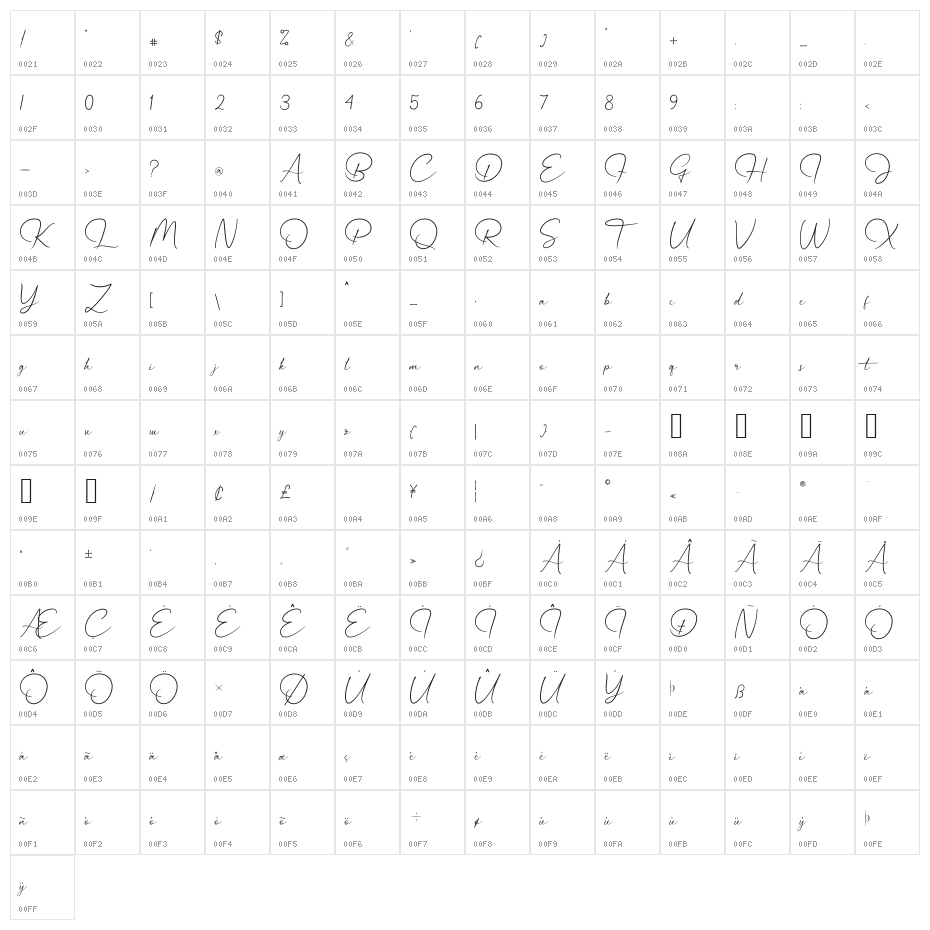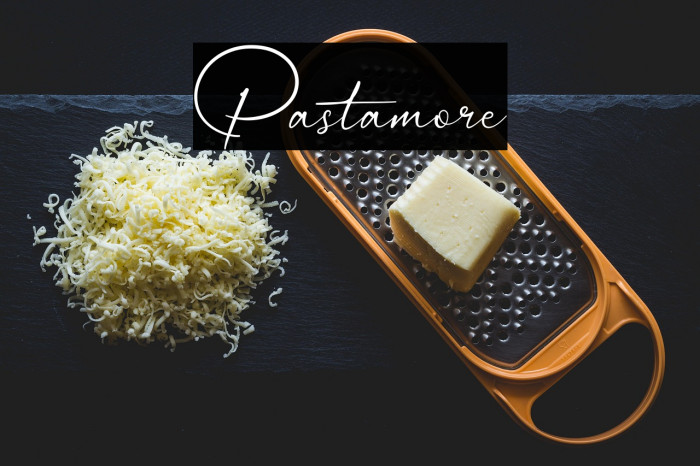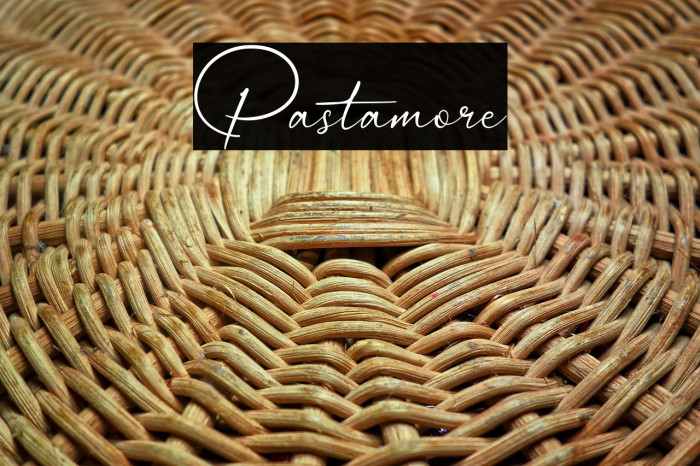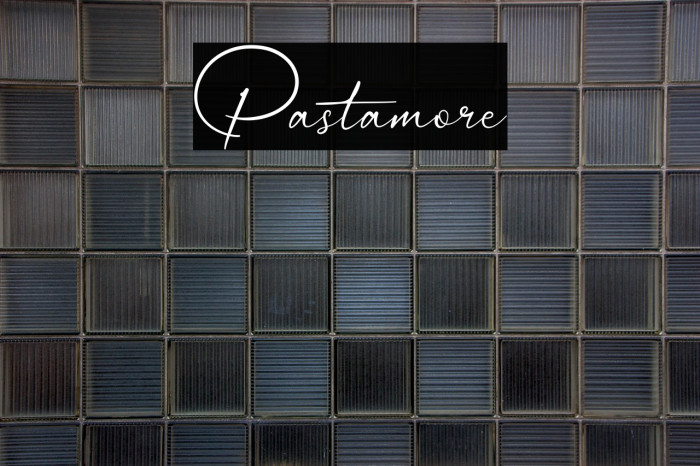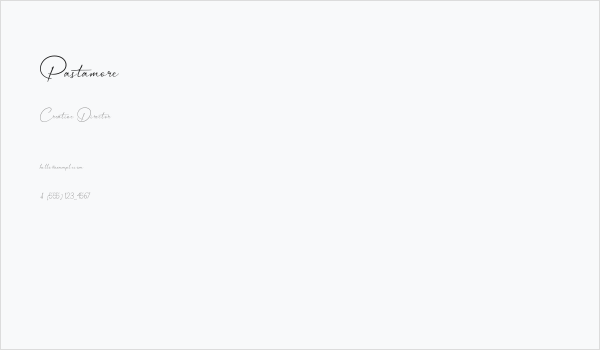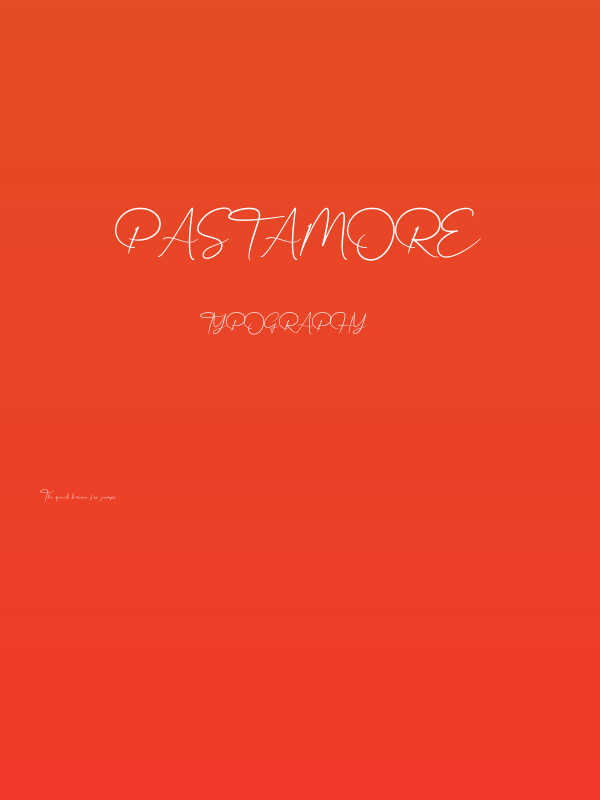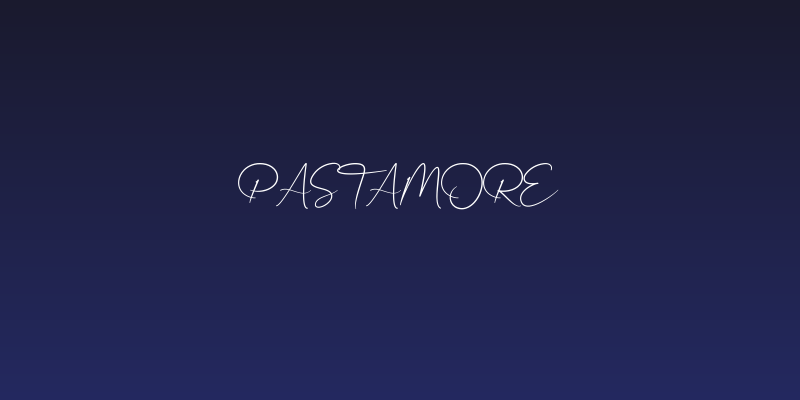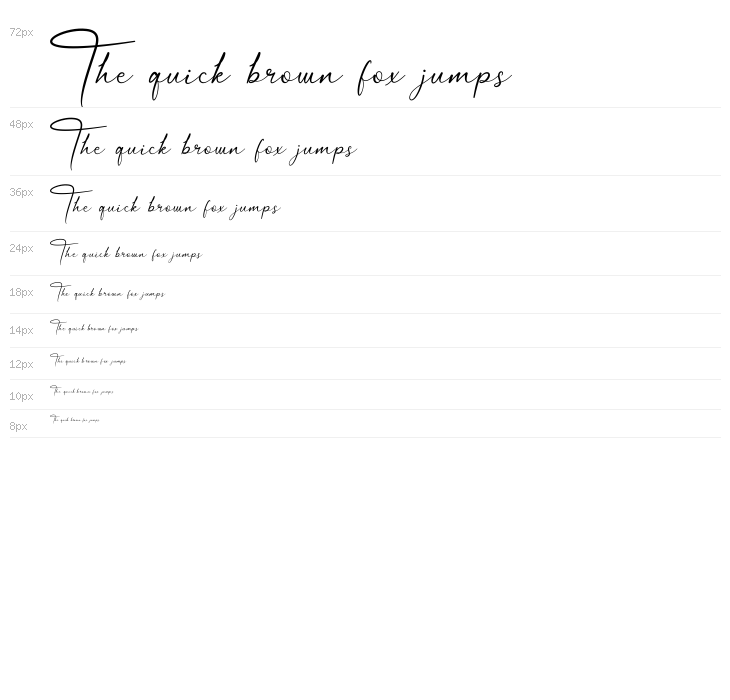
Pastamore Font
Pastamore Description
Elegant script font with flowing, connected letters and a handwritten appearance.
| Overall Style | Elegant, Handwritten |
| Proposed Projects | Wedding invitations, greeting cards, elegant branding. |